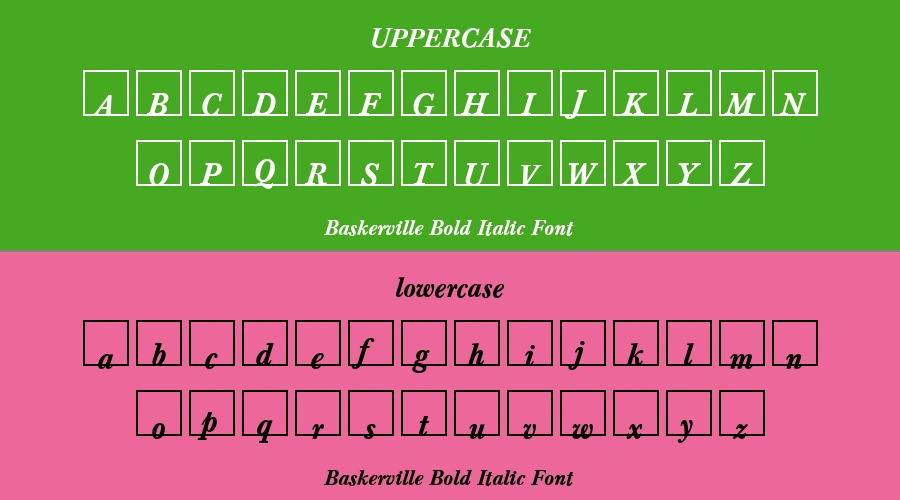
About Baskerville Bold Italic Font
Designed with precision, Baskerville Bold Italic Font merges graceful serifs with tradition in every character. This versatility makes it particularly effective for traditional magazines, where adaptability and system compatibility directly impact communication quality. Each letterform demonstrates meticulous craftsmanship.
Technical excellence shines through elements like tapered strokes and isolated forms, enhancing typographic versatility. In retail environments settings, Baskerville Bold Italic Font proves its worth through superior format conversion. The thoughtful execution of contrast level and engineering heritage ensures professional results.